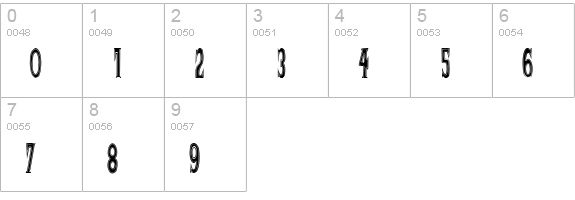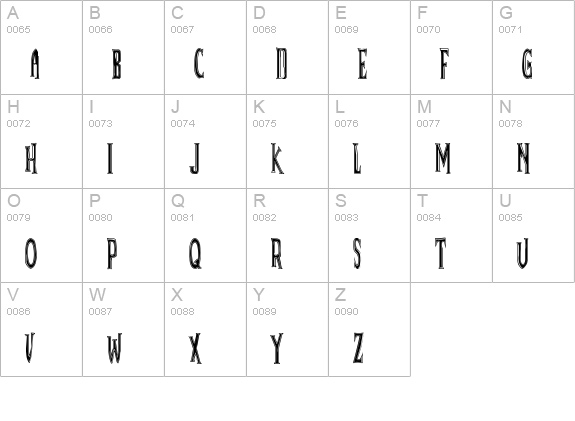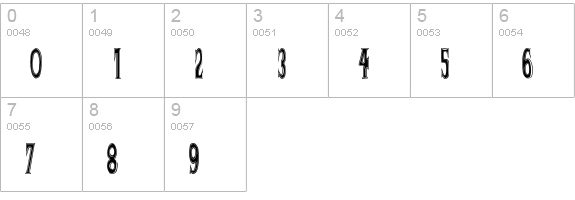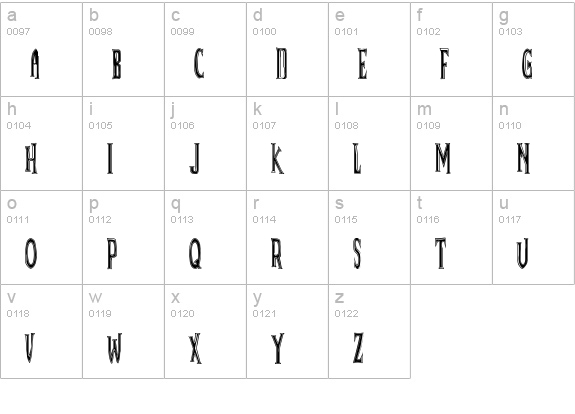
Introducing Dead By Dawn UK font, a hauntingly beautiful typeface that exudes mystery and intrigue. This unique font is perfect for creating spooky designs, Halloween-themed projects, or anything that requires a touch of the supernatural. With its sharp edges and gothic-inspired details, Dead By Dawn UK font will add a touch of darkness to your creations. What's even more exciting is that Dead By Dawn UK font is completely free to download at FontsMarket.com. Yes, you read that right - you can add this stunning font to your collection at no cost at all. So why wait? Download Dead By Dawn UK font today and unleash your creativity with this eerie and captivating typeface.